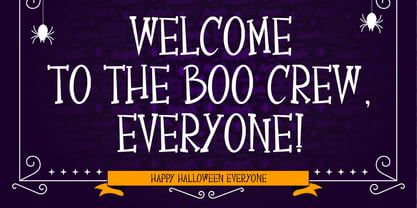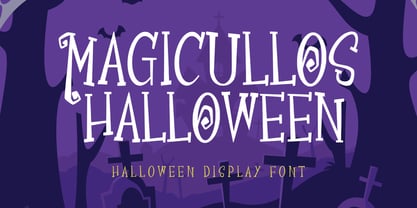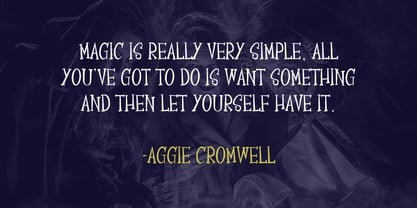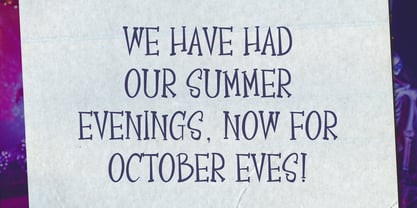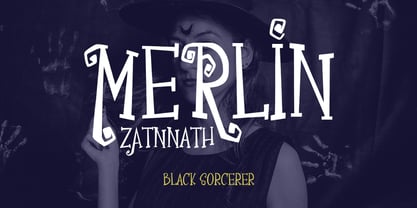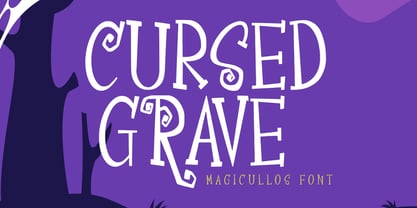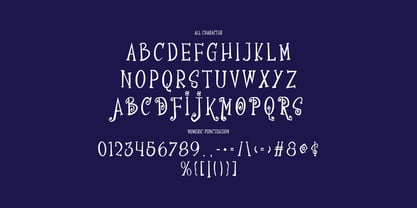
MC Magicullos
by Maulana Creative
The MC Magicullos Font Family was designed by Gilang Maulana and published by Maulana Creative. MC Magicullos contains 1 styles. More about this family
Magicullos halloween display font decorative, bold stroke, fun character with a bit of alternates. To give you an extra creative work. Magicullos halloween font decorative support multilingual more than 100+ language. This font is good for logo design, Social media, Movie Titles, Books Titles, a short text even a long text letter and good for your secondary text font with script or serif. Make a stunning work with Magicullos halloween display font.
Designers: Gilang Maulana
Foundry: Maulana Creative